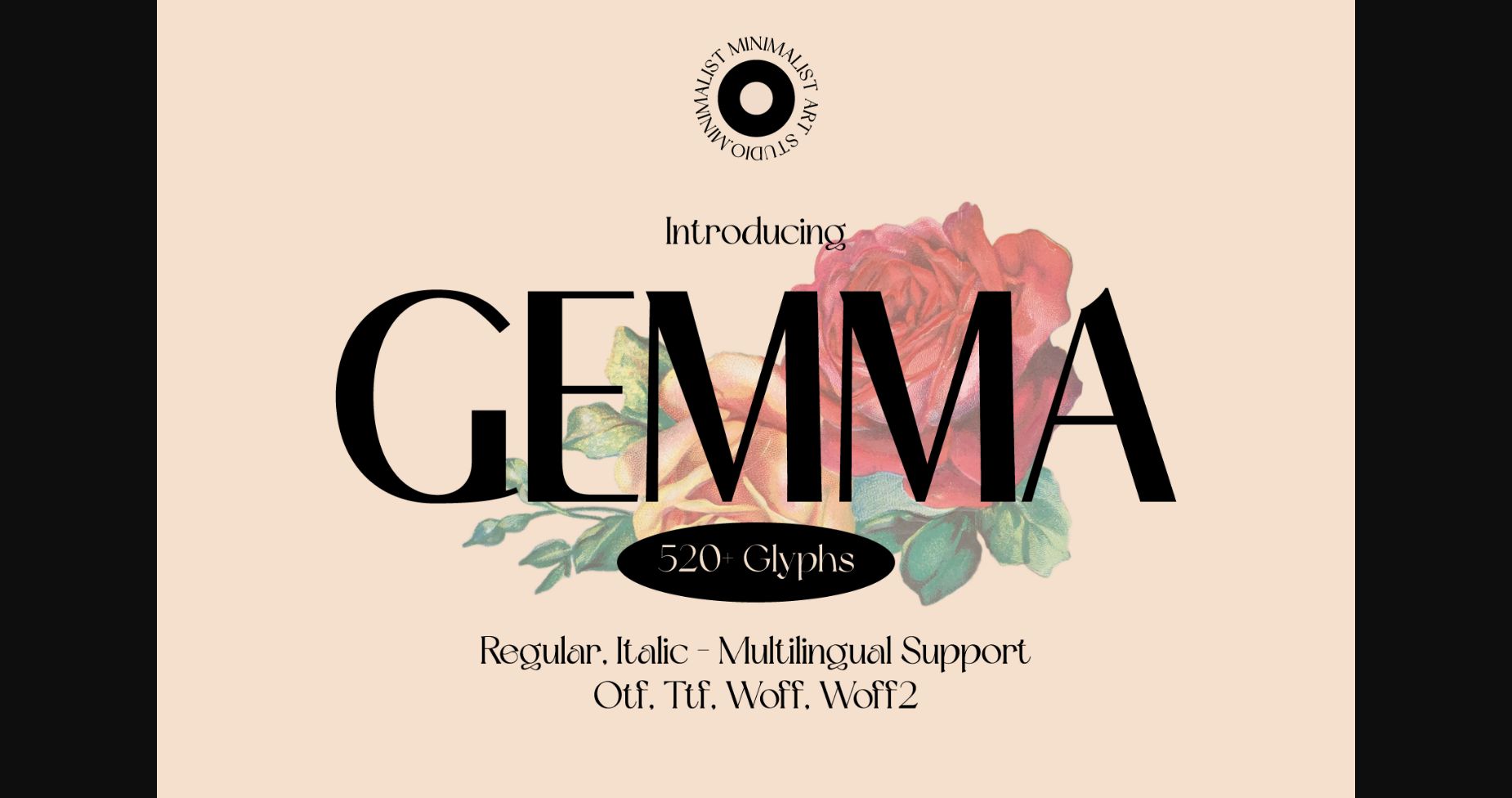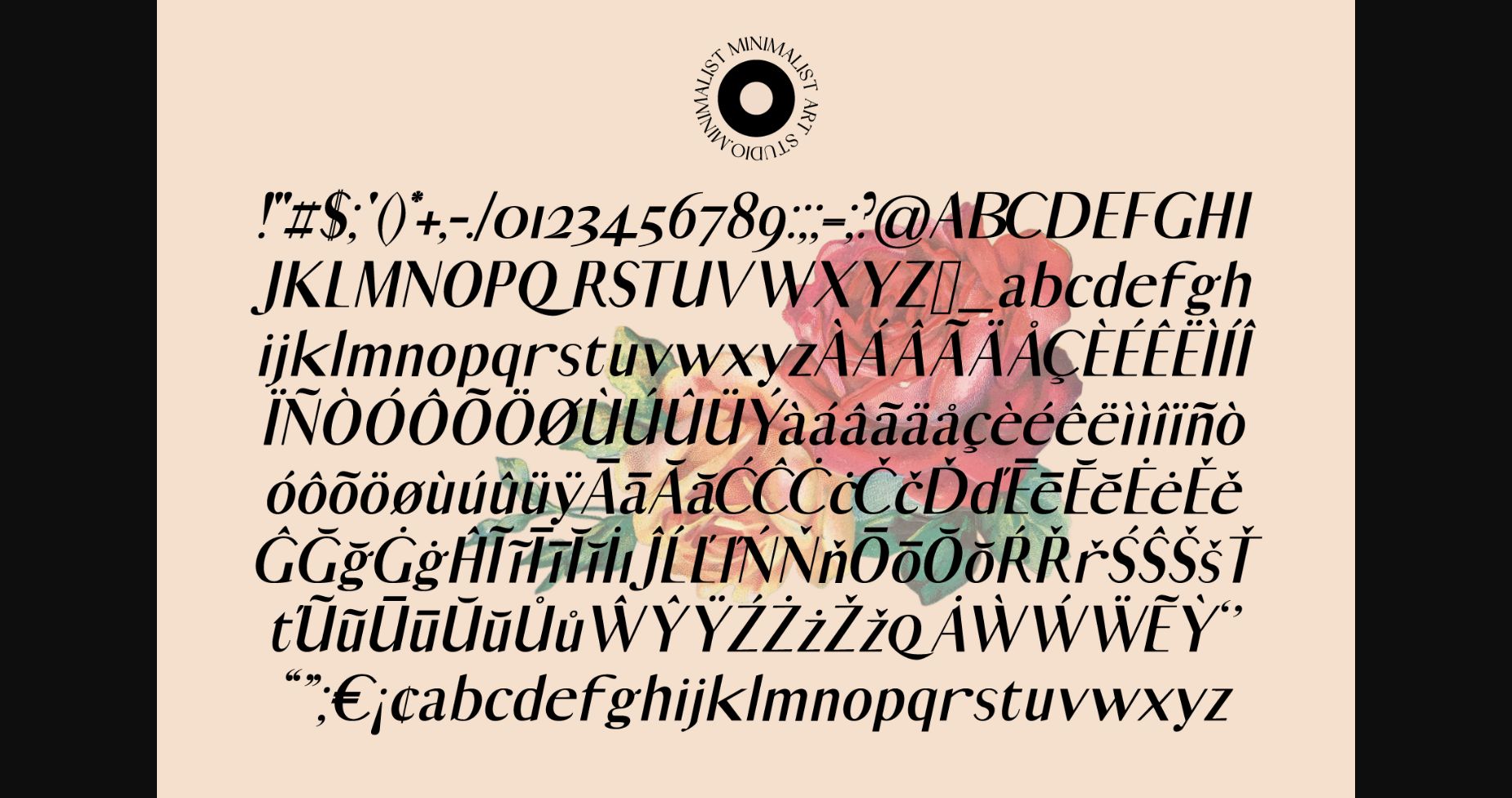
About Gemma Font
Gemma is a stunning sans-serif font that exudes class, chic, and elegance. With its sleek lines and timeless appeal, Gemma is the perfect choice for designers looking to make a bold statement.
The font’s clean and modern style gives it versatility that makes it ideal for a wide range of design projects, from high-end fashion and luxury branding to minimalist website designs and editorial layouts.